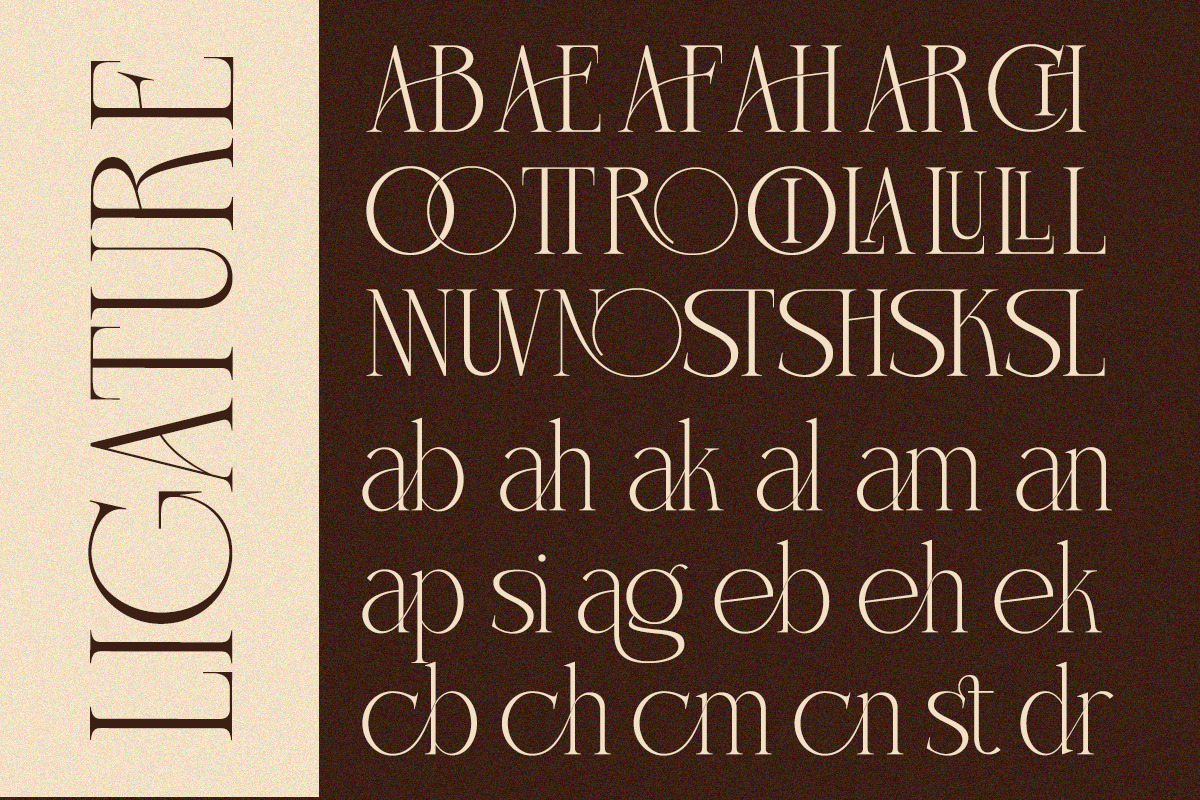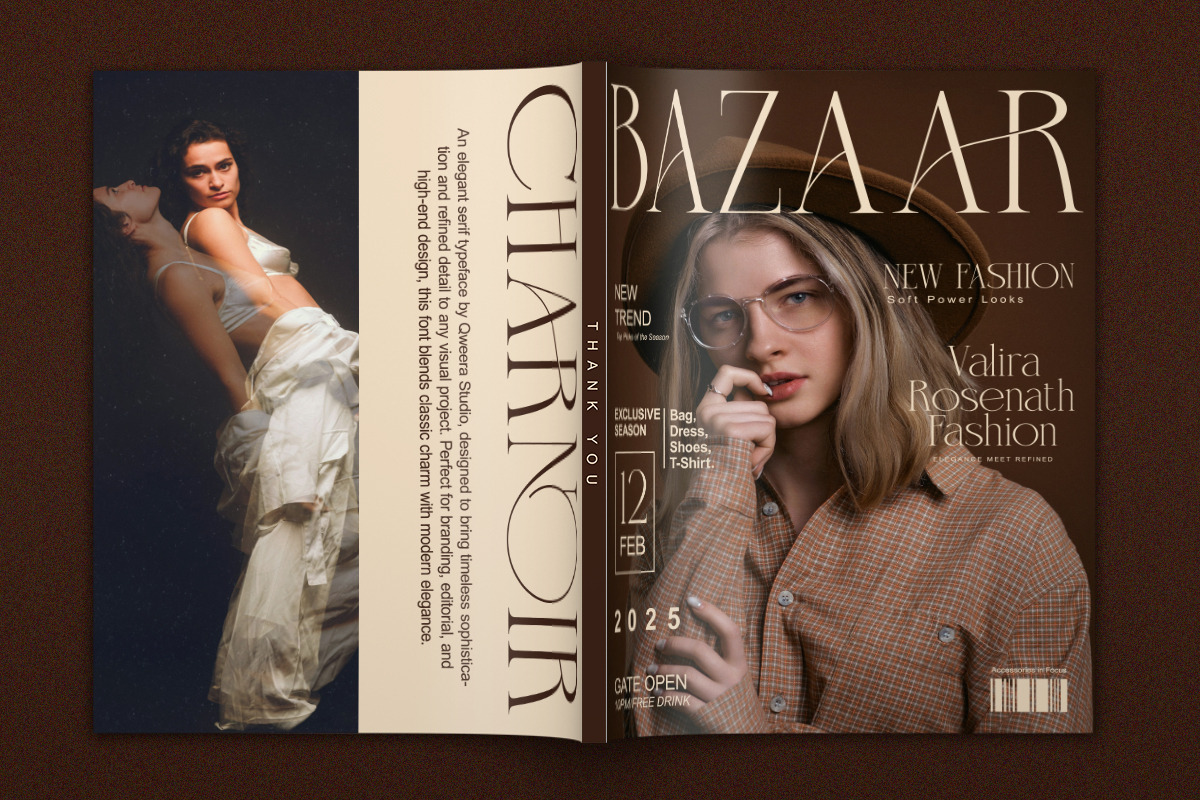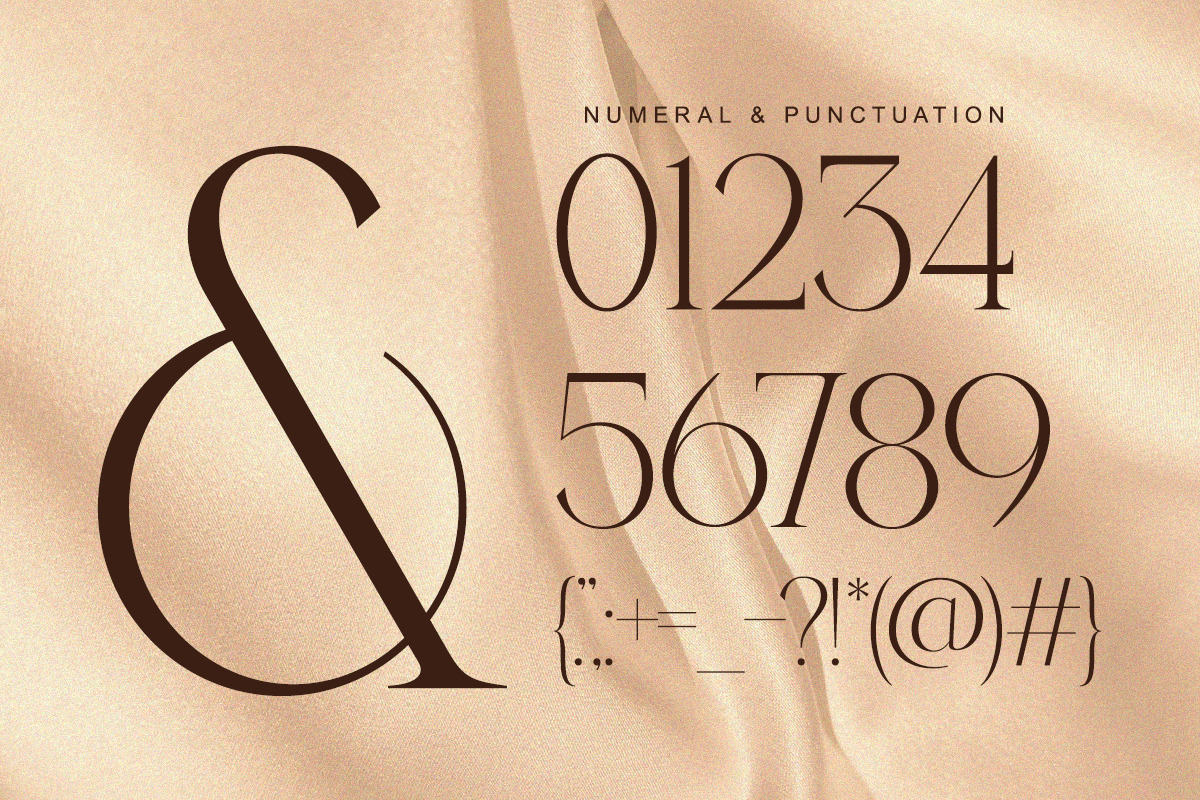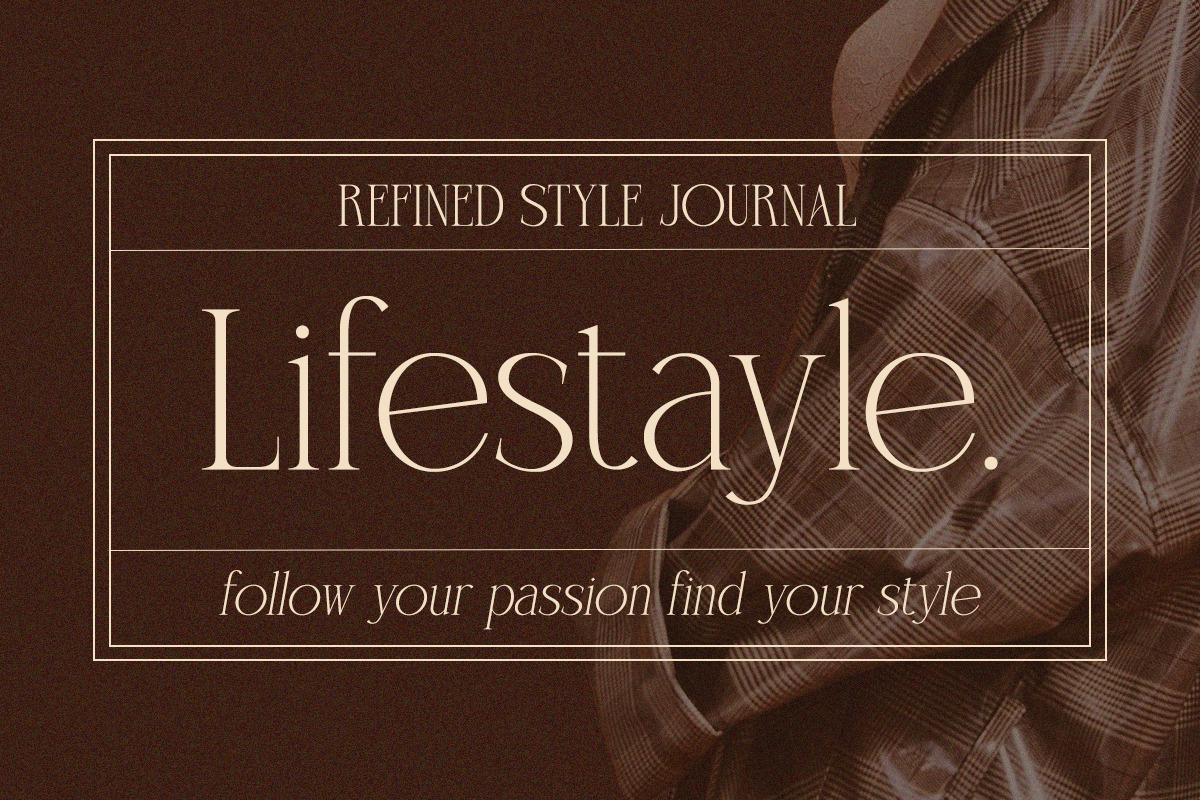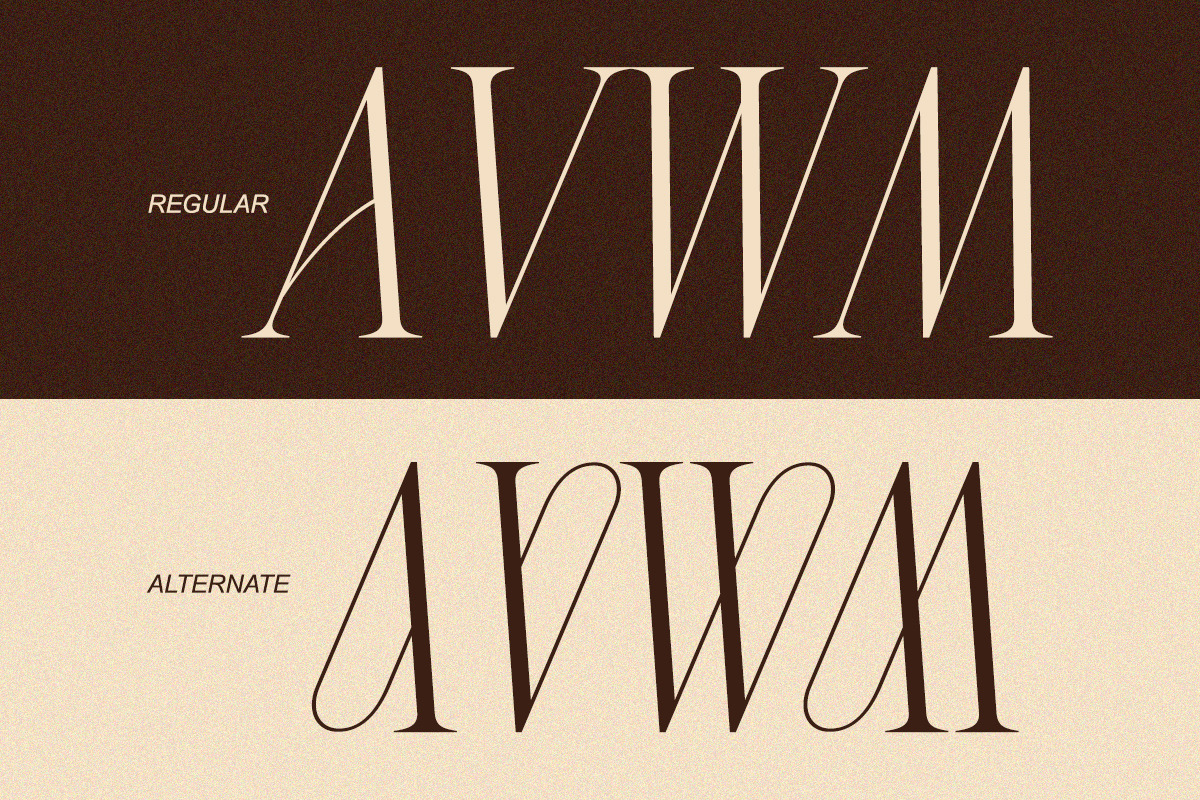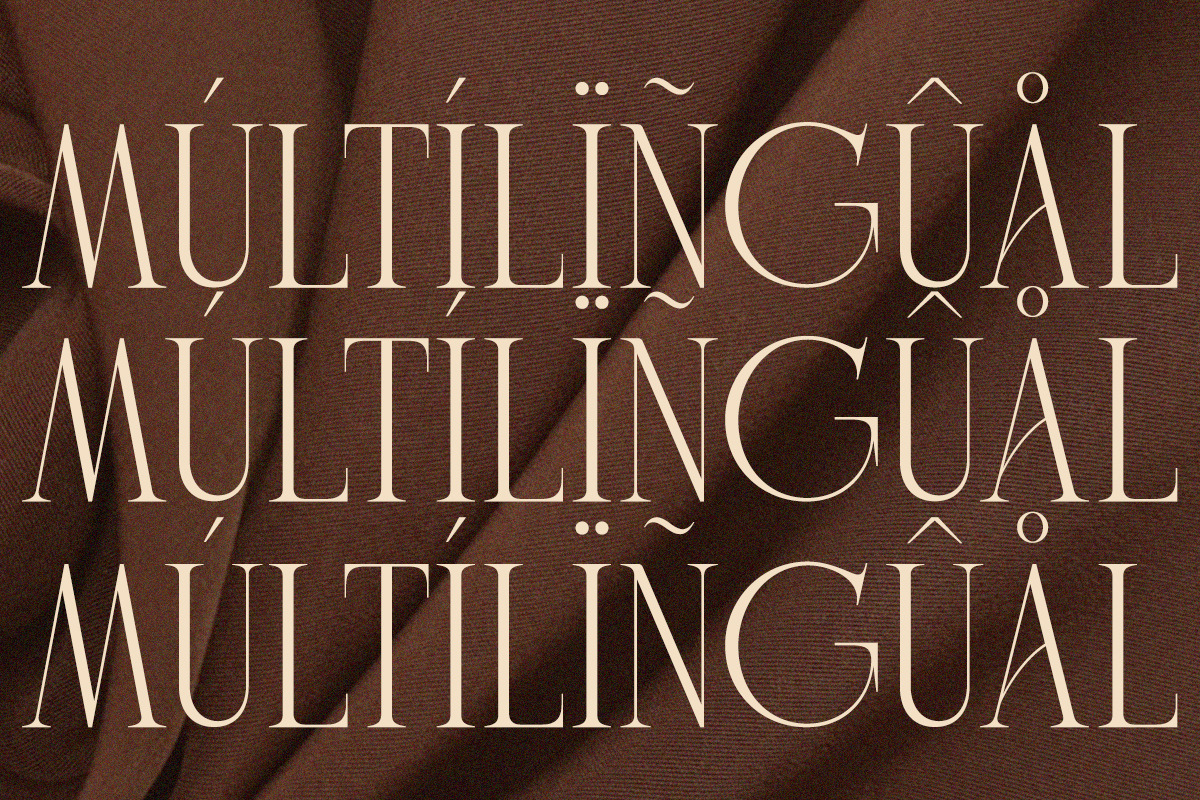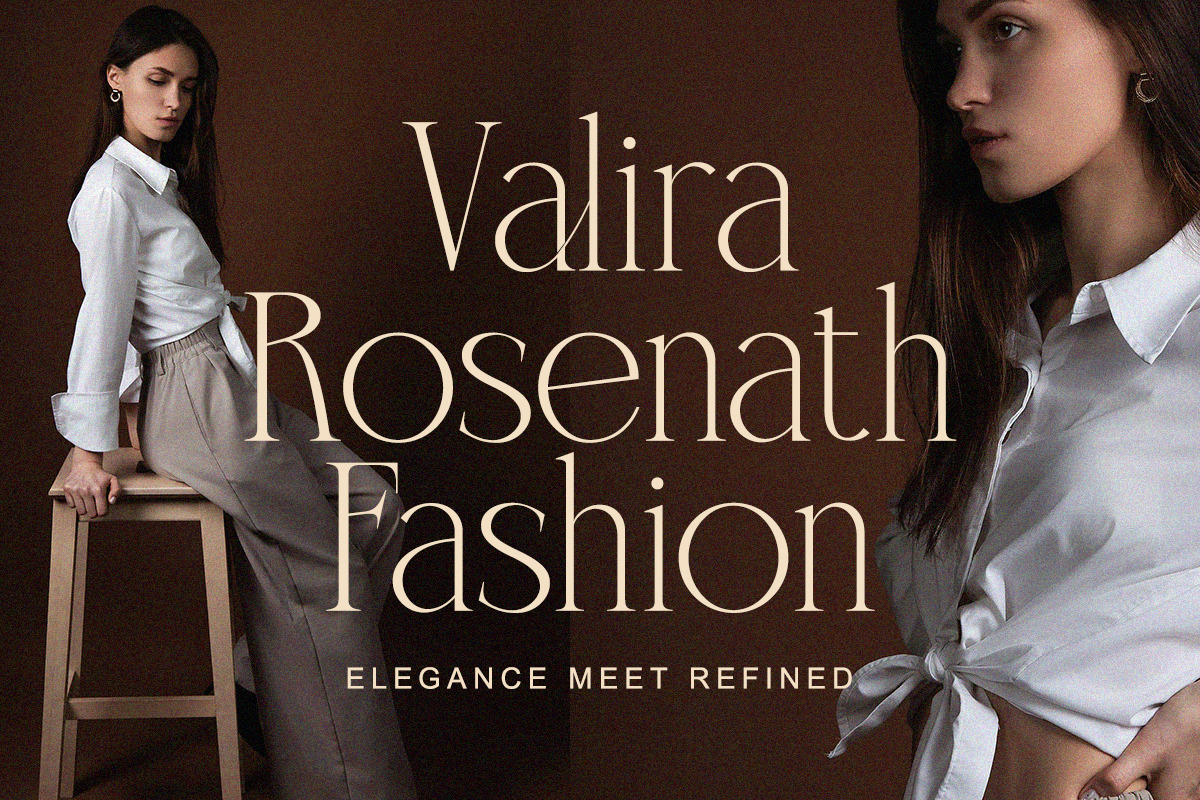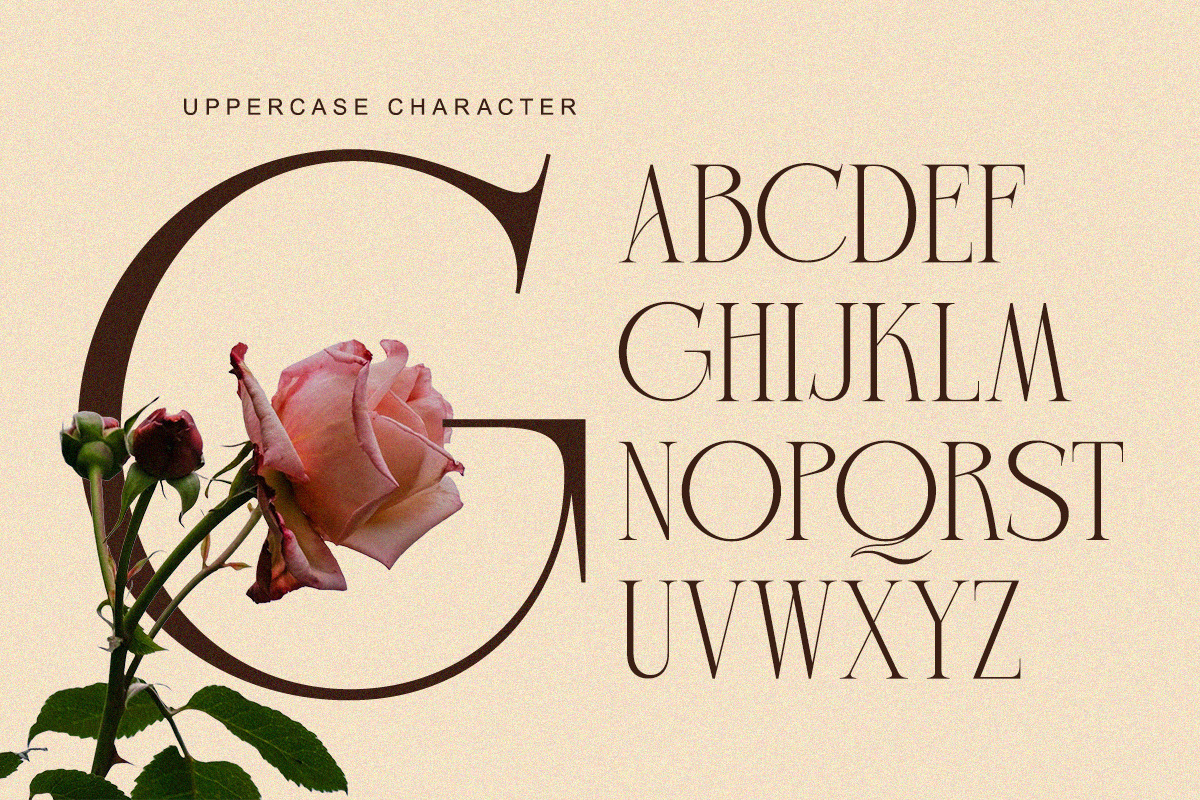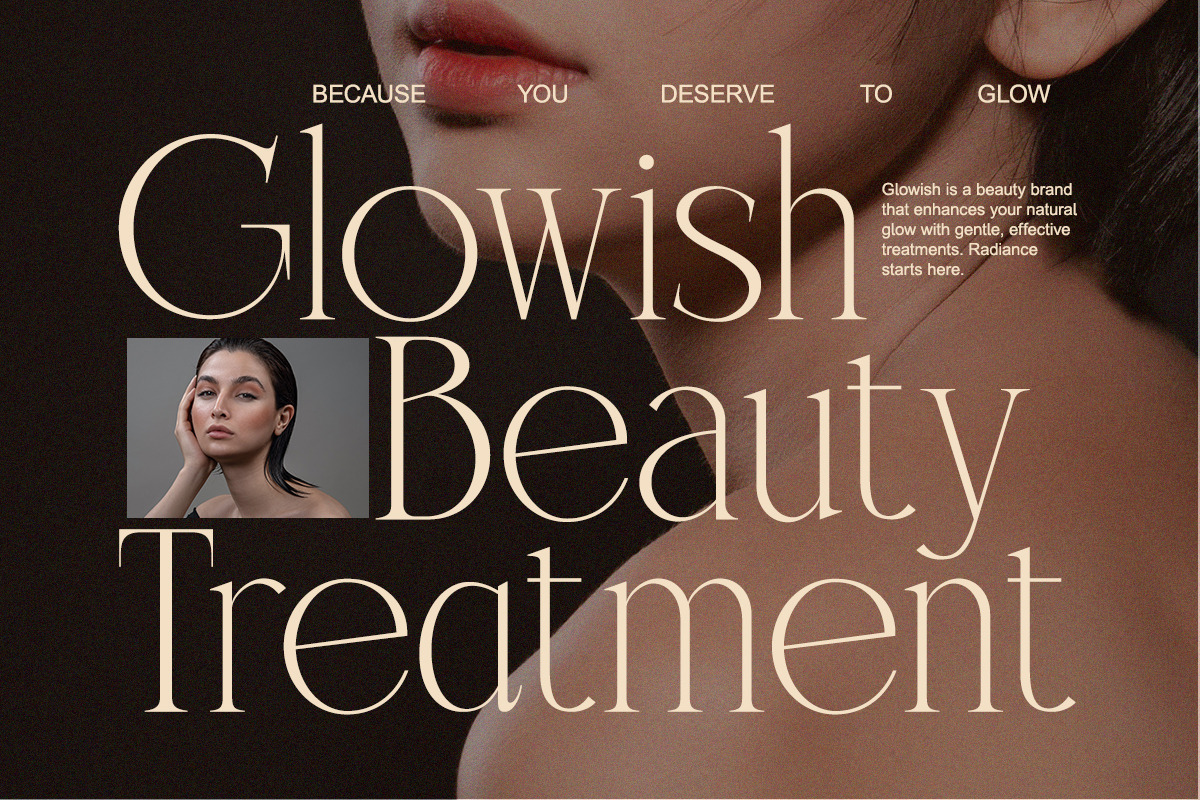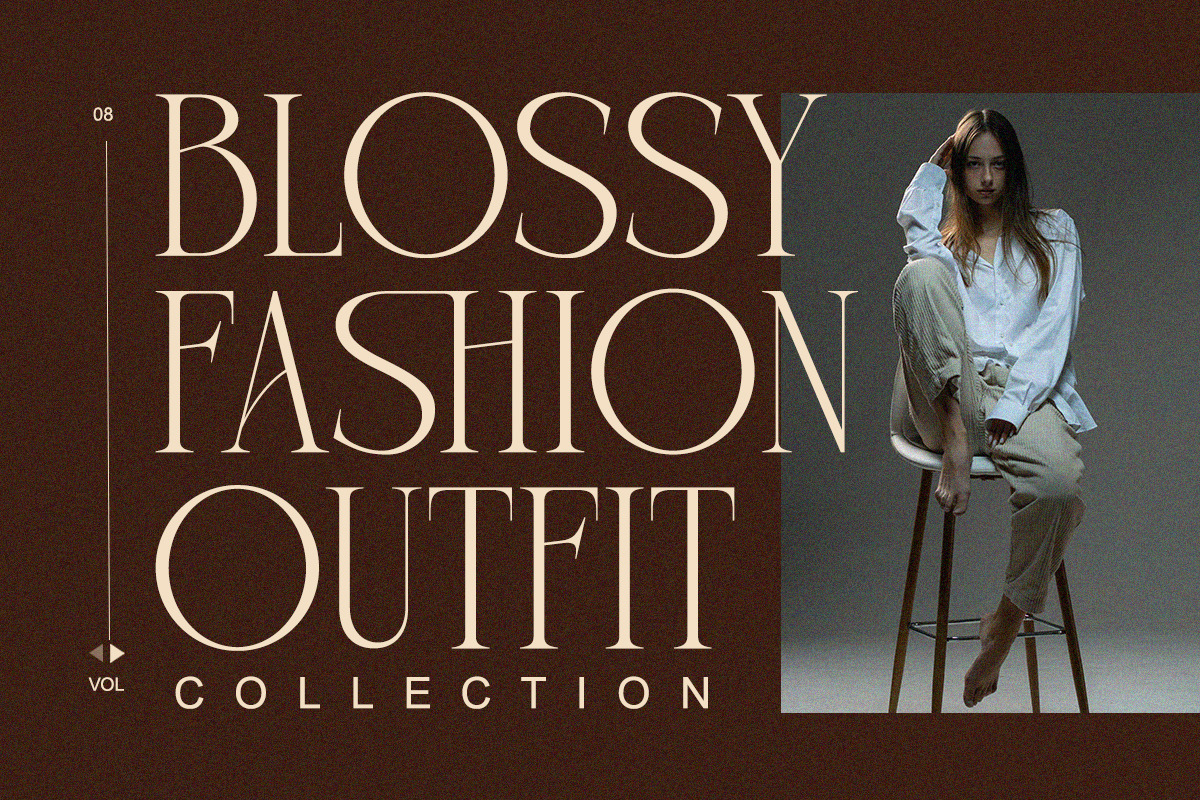
Charnoir - Modern Elegant Luxury
Charnoir is a high-class serif typeface that blends dramatic curves with minimalist finesse.
Tailored for fashion editorials, branding for premium products, and elegant logos, Charnoir carries an aura of mystery and timeless beauty. Each glyph is meticulously crafted with unique alternates that elevate your typography game to the next level. Perfect for designers who crave modern elegance with a strong, graceful personality.
Whether you're crafting a high-fashion campaign or a sophisticated identity, Charnoir sets the tone for prestige and refinement.
- Regular & Italic
- Unique alternates & ligatures
- Elegant curves & clean lines
- Editorial fashion magazine
- Classy branding projects
- Luxury packaging design
- Feminine logo typography
- Stylish Instagram content
- Modern wedding invitation
Charnoir brings elegance with a whisper of boldness.